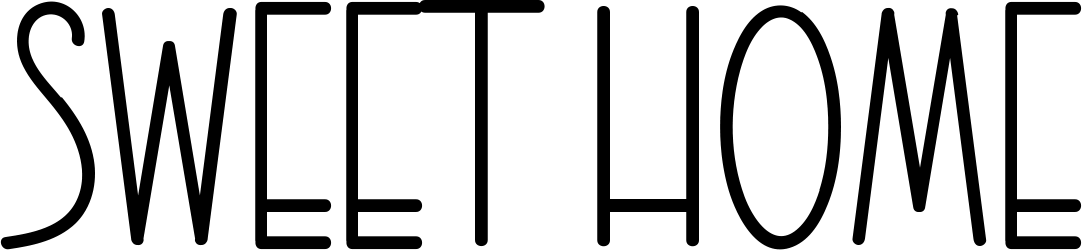
Sweet Home Font
Sit tight and get ready to create a flawless text design with Sweet Home font. The thin and rounded letters share a vibe of old-fashioned and classic styles. Remember, this cute font doesn’t support small letters. Utilize it for flyers, websites, fashion branding, and whatnot. If you crave more, dive deeper into RB.